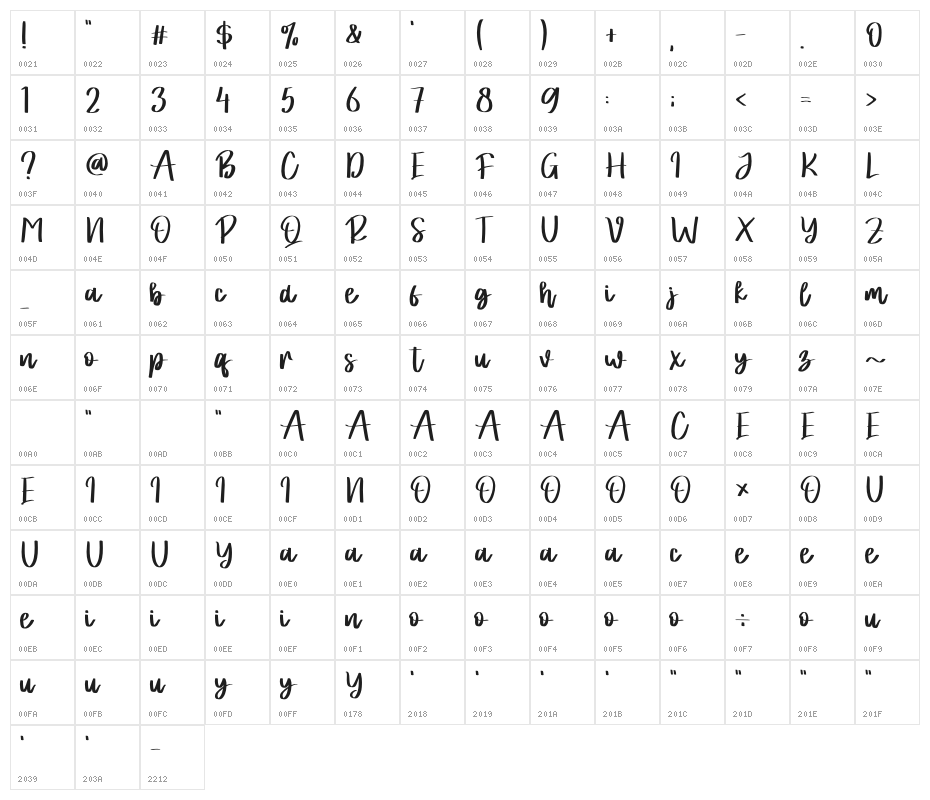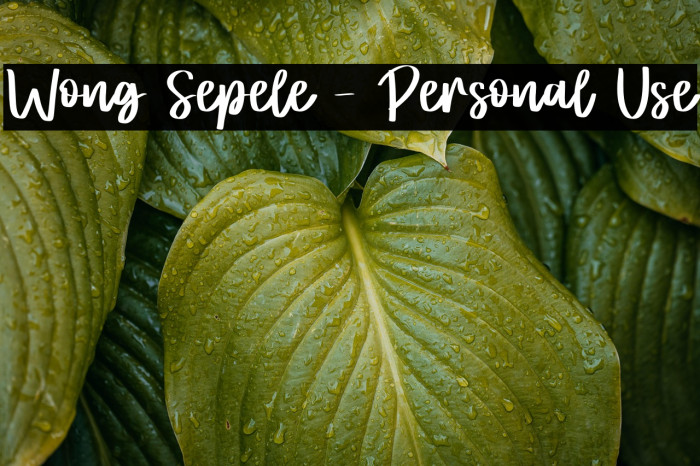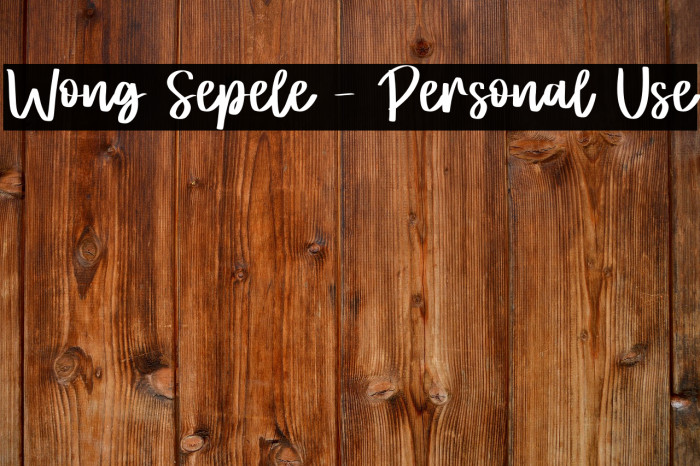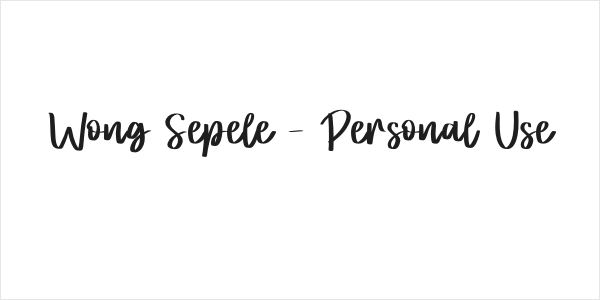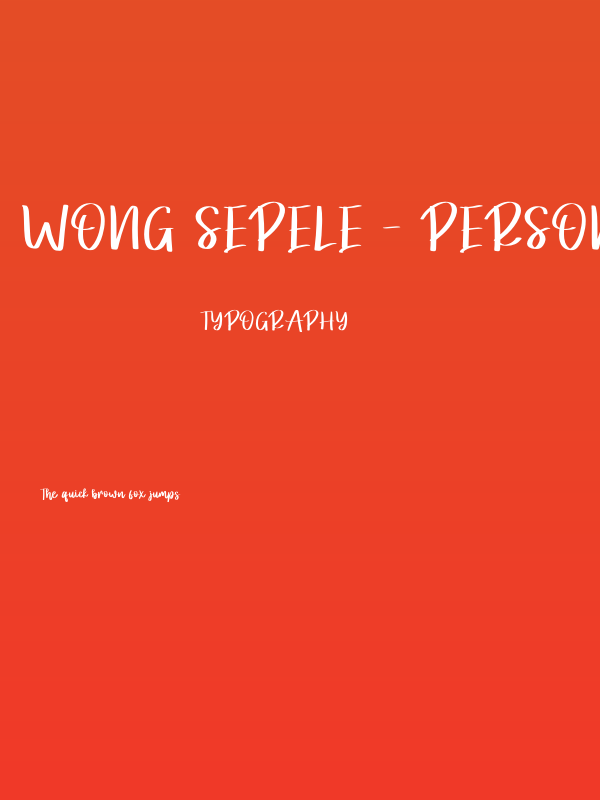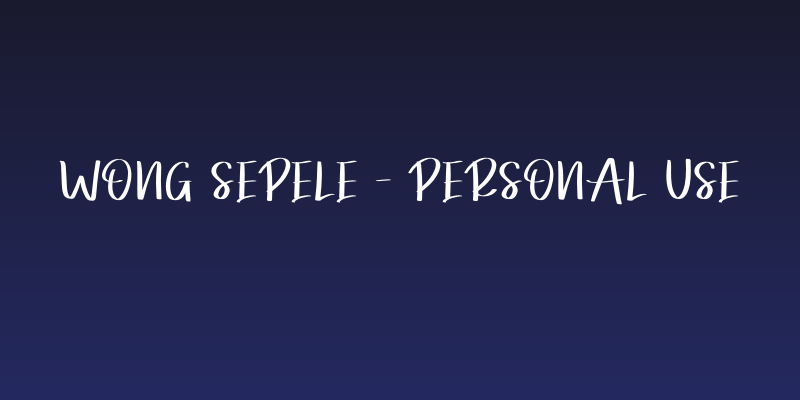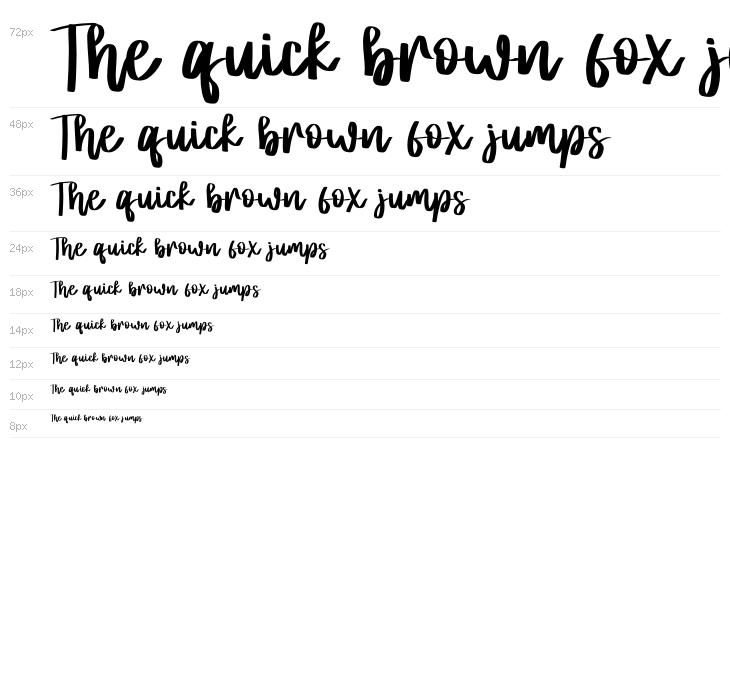
Wong Sepele - Personal Use Font
Wong Sepele - Personal Use Description
This font features a playful and energetic handwritten style, characterized by its bold and flowing strokes. The uppercase letters exhibit a dynamic and slightly slanted appearance, while the lowercase letters maintain a consistent rhythm with a touch of whimsy. The numerals are bold and easily legible, complementing the overall style. Special characters are integrated seamlessly, maintaining the font's cohesive look. The font's casual yet stylish design makes it suitable for a variety of creative applications.
| Proposed Projects | Ideal for greeting cards, invitations, social media graphics, and branding projects that require a personal touch. |